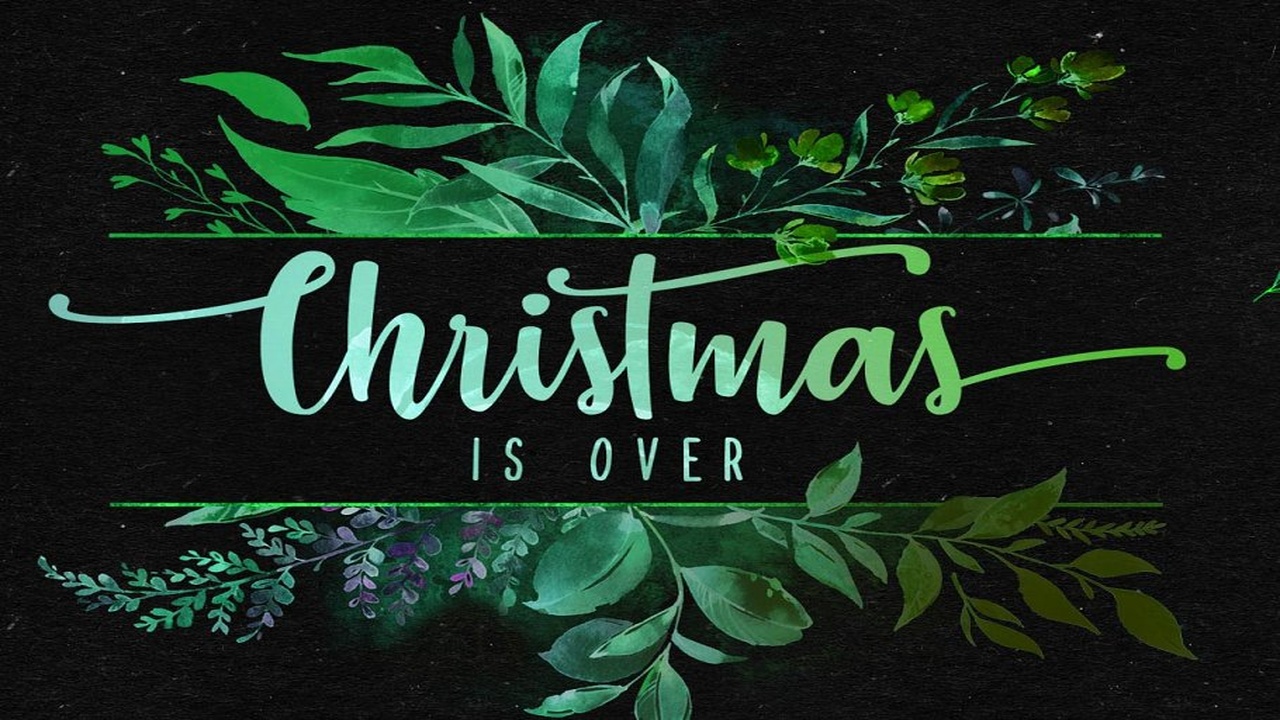
About the Strawberry Blossom Font
Introducing Strawberry Blossom, my last script font, made for your best creative typographic designs!Try it for any of your DIY projects, cards, posters, packaging, web design, photos, scrapbooking, or anything hidden in your creative mind!This font duo contains the Strawberry Blossom font, and Strawberry Flowers, a cool casual sans serif font, IN THE BOXStrawberry Blossom complete font set, with alternates glyphs and ligatureStrawberry Flowers font, to be paired (or not) with the fontStrawberry Blossom Alternates 1 (easier if you can’t access the glyphs panel)Strawberry Blossom Alternates 2 (easier if you can’t access the glyphs panel)I really hope you’ll have fun with my font!I made this with love, so use it with love! 😉